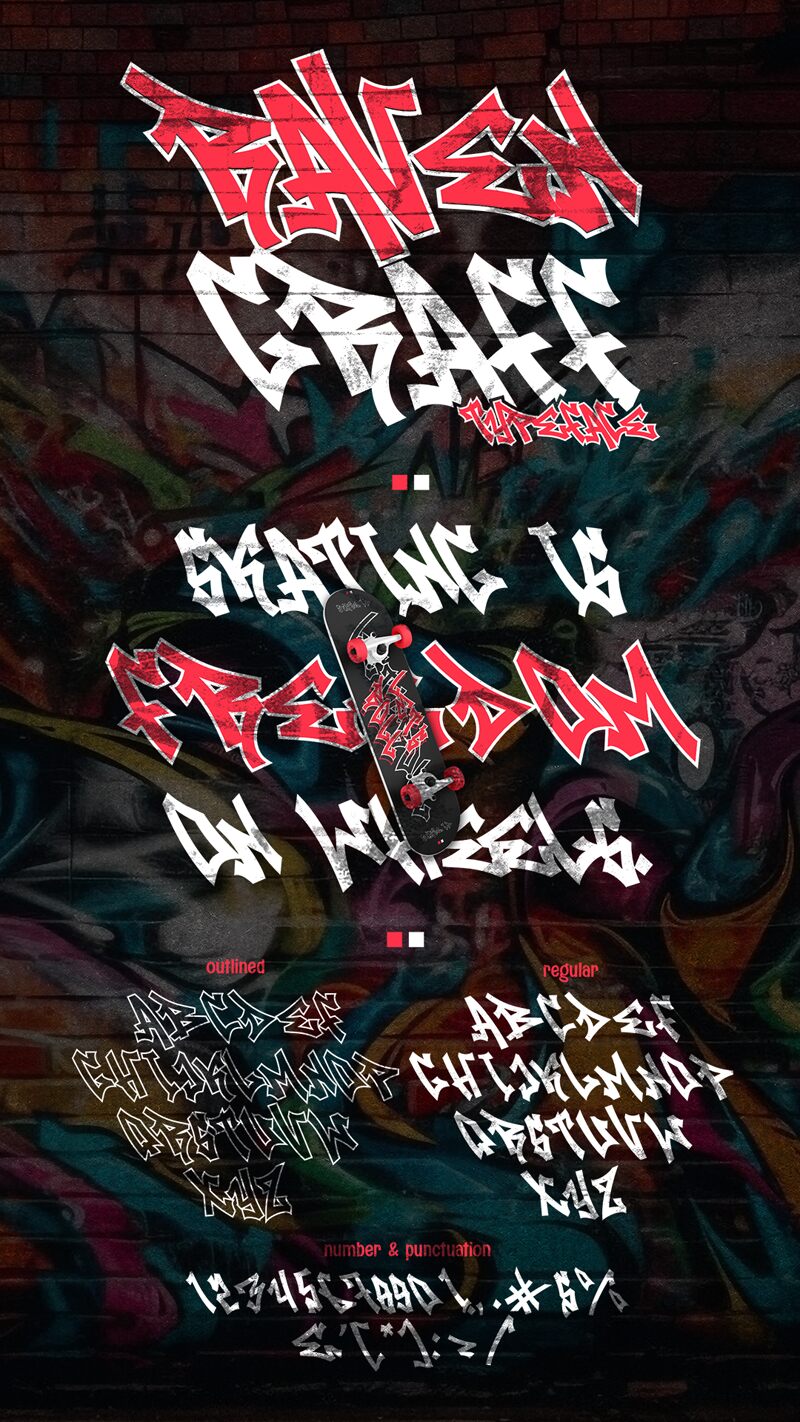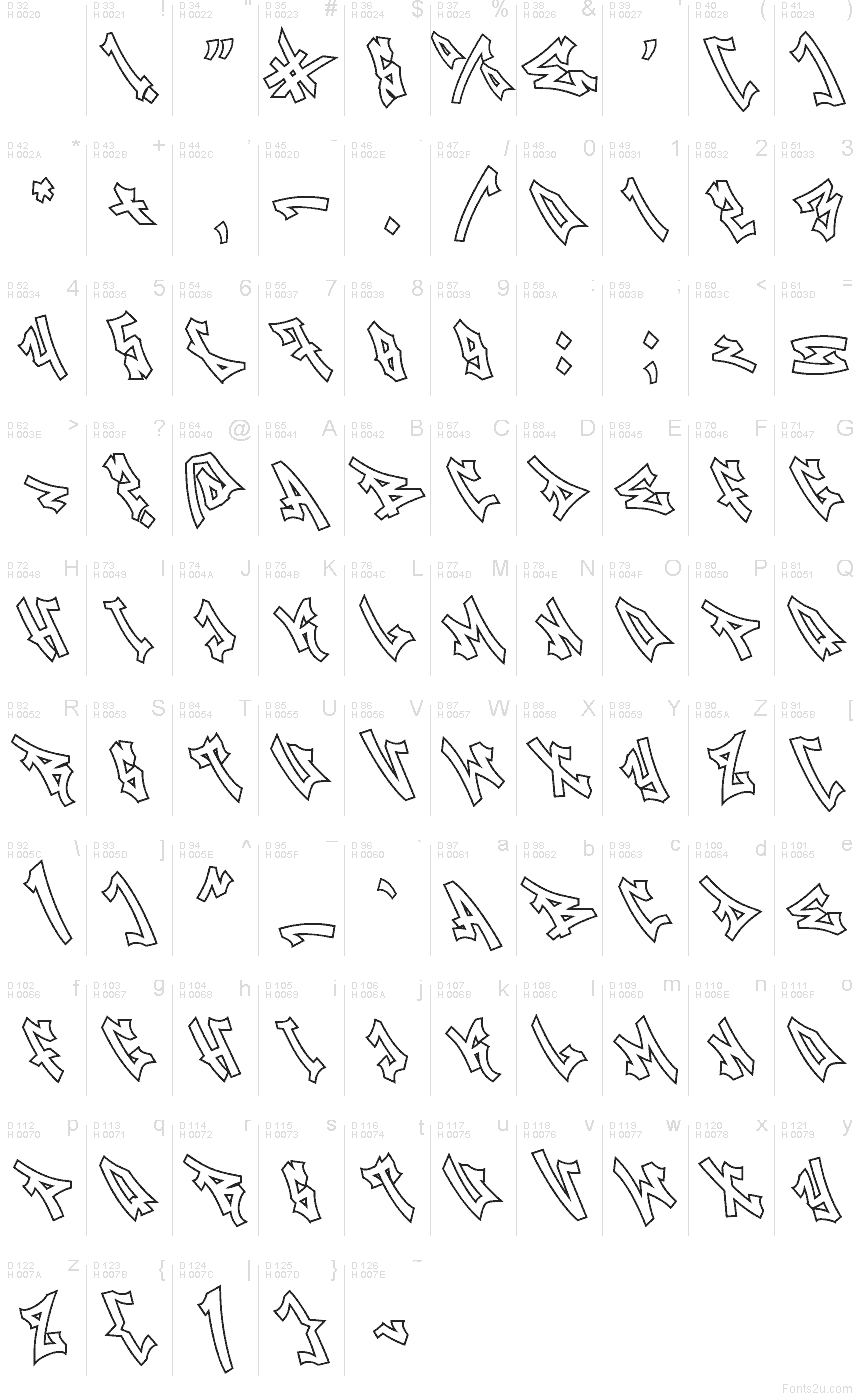
Raven Graff Outline font by Cikareotype Studio is a free graffiti outline typeface that captures the raw energy of hand-sprayed tags without the mess. Angular letterforms snap and jut like shards of metal, while the hollow interior gives you room to play with color, textures, and gradients. The spacing feels tight and urban, so words lock together into a single, jagged ribbon of attitude.
This free font shines on streetwear branding, album covers, skate or BMX graphics, YouTube thumbnails, urban event posters, and bold sticker designs. Using Raven Graff Outline at larger sizes lets the edgy contours and open interiors really breathe. Pair it with a clean, neutral sans serif for body copy to keep the wildness contained and the message crystal clear.